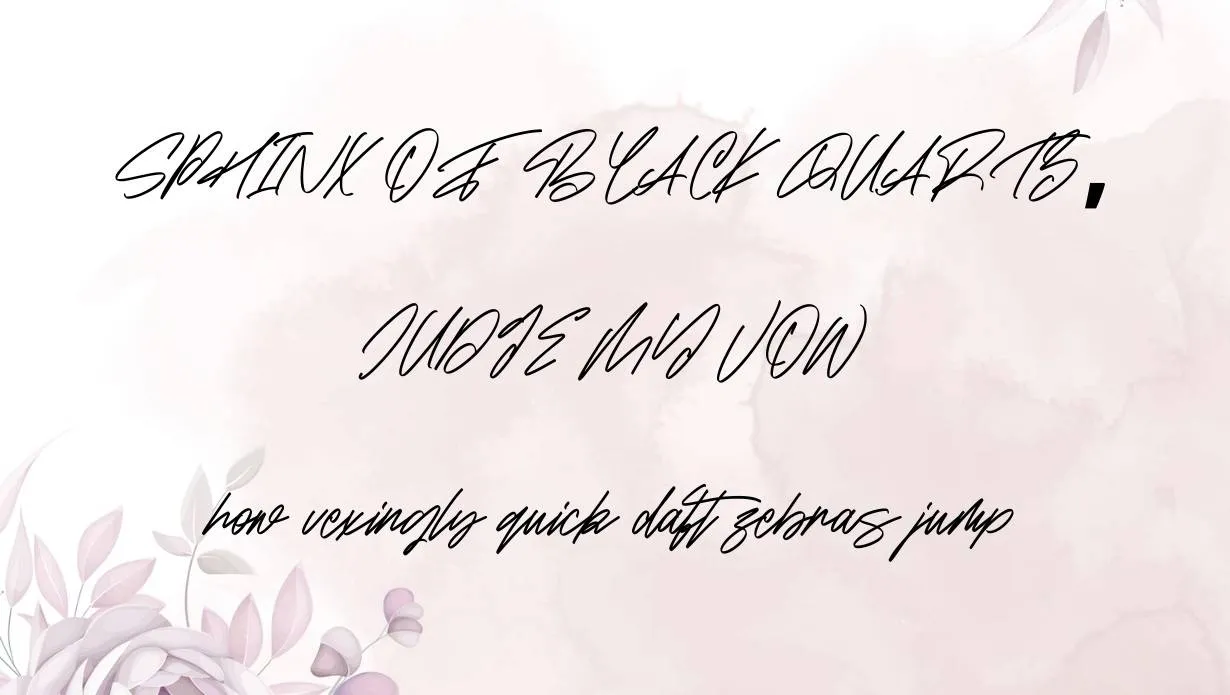
Beauty Flome Font is a beautiful script font that was created by a famous designer. It is one of the most popular fonts used by many people all over the world. This font was created by a famous designer in the early 20th century. He was inspired by the beauty of nature and the world around him.
The typeface is also matched with other calligraphy typefaces and has a matching personality with cubano font, you can make brand new designing stuff with mix these two typefaces as well. This font includes many different glyphs that are all very beautiful.
Each glyph has its own meaning and purpose. The glyph of this font is very popular among many people. This version includes all of the glyphs that were created by the designer. It also includes a lot of information about the designer and his work.
Who Used Beauty Flome Font?
Beauty Flome Font has been used in many different ways, but it is most commonly used in advertising and branding. The font has also been used in movies and television shows. This font has been used by many people all over the world and is still popular today. It is often used for wedding invitations and other special occasions.
The typeface family can also work well with BMW Font and you will not find any difference between these two typefaces while pairing and applying them in a design.
Beauty Flome Font Family Appearance
NameBeauty Flome Font
DesignerMaulanaCreative
StyleScript
Who designed the Beauty Flome Font?
The Font was designed by a famous designer in the early 20th century. He was inspired by the beauty of nature and the world around him.
Why is the Beauty Flome Font so popular?
The glyphs in this font are very beautiful and each has its own meaning and purpose. The font is also very popular because it includes a lot of information about the designer and his work.
What are some of the ways that the Beauty Flome Font has been used?
The Font has been used in many different ways, but it is most commonly used in advertising and branding. The font has also been used in movies and television shows.